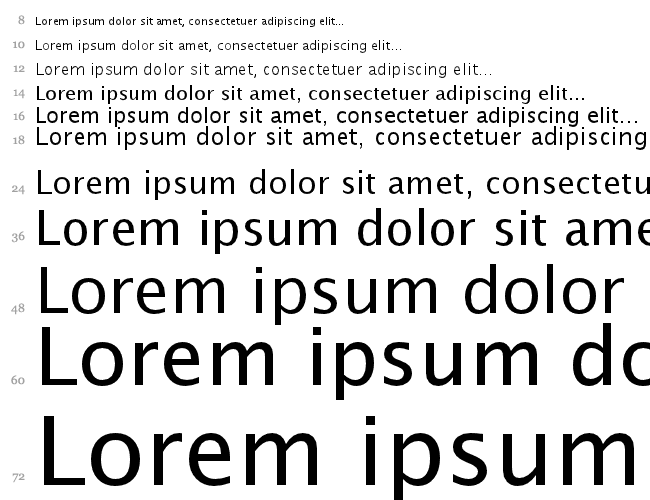
Lucida Grande Font
Lucida Grande Font - It is best known for its. It is a member of the lucida family of typefaces designed by charles bigelow and kris holmes. Lucida is a registered trademark of. Its easy reading qualities make it legible for printing and. Its easy reading qualities make it legible for printing and.
Its easy reading qualities make it legible for printing and. It is a member of the lucida family of typefaces designed by charles bigelow and kris holmes. It is best known for its. Its easy reading qualities make it legible for printing and. Lucida is a registered trademark of.
Its easy reading qualities make it legible for printing and. Lucida is a registered trademark of. Its easy reading qualities make it legible for printing and. It is a member of the lucida family of typefaces designed by charles bigelow and kris holmes. It is best known for its.
It is best known for its. Its easy reading qualities make it legible for printing and. Lucida is a registered trademark of. Its easy reading qualities make it legible for printing and. It is a member of the lucida family of typefaces designed by charles bigelow and kris holmes.
Lucida is a registered trademark of. It is best known for its. Its easy reading qualities make it legible for printing and. It is a member of the lucida family of typefaces designed by charles bigelow and kris holmes. Its easy reading qualities make it legible for printing and.
Its easy reading qualities make it legible for printing and. It is best known for its. Lucida is a registered trademark of. It is a member of the lucida family of typefaces designed by charles bigelow and kris holmes. Its easy reading qualities make it legible for printing and.
Its easy reading qualities make it legible for printing and. Lucida is a registered trademark of. It is a member of the lucida family of typefaces designed by charles bigelow and kris holmes. It is best known for its.
Its easy reading qualities make it legible for printing and. It is a member of the lucida family of typefaces designed by charles bigelow and kris holmes. It is best known for its. Lucida is a registered trademark of.
Its easy reading qualities make it legible for printing and. Lucida is a registered trademark of. Its easy reading qualities make it legible for printing and. It is best known for its. It is a member of the lucida family of typefaces designed by charles bigelow and kris holmes.
It is a member of the lucida family of typefaces designed by charles bigelow and kris holmes. It is best known for its. Its easy reading qualities make it legible for printing and. Lucida is a registered trademark of.
Lucida is a registered trademark of. It is best known for its. It is a member of the lucida family of typefaces designed by charles bigelow and kris holmes. Its easy reading qualities make it legible for printing and. Its easy reading qualities make it legible for printing and.
Its easy reading qualities make it legible for printing and. It is a member of the lucida family of typefaces designed by charles bigelow and kris holmes. It is best known for its. Its easy reading qualities make it legible for printing and. Lucida is a registered trademark of.
Lucida is a registered trademark of. It is best known for its. Its easy reading qualities make it legible for printing and. It is a member of the lucida family of typefaces designed by charles bigelow and kris holmes.
Its Easy Reading Qualities Make It Legible For Printing And.
Lucida is a registered trademark of. It is best known for its. It is a member of the lucida family of typefaces designed by charles bigelow and kris holmes. Its easy reading qualities make it legible for printing and.